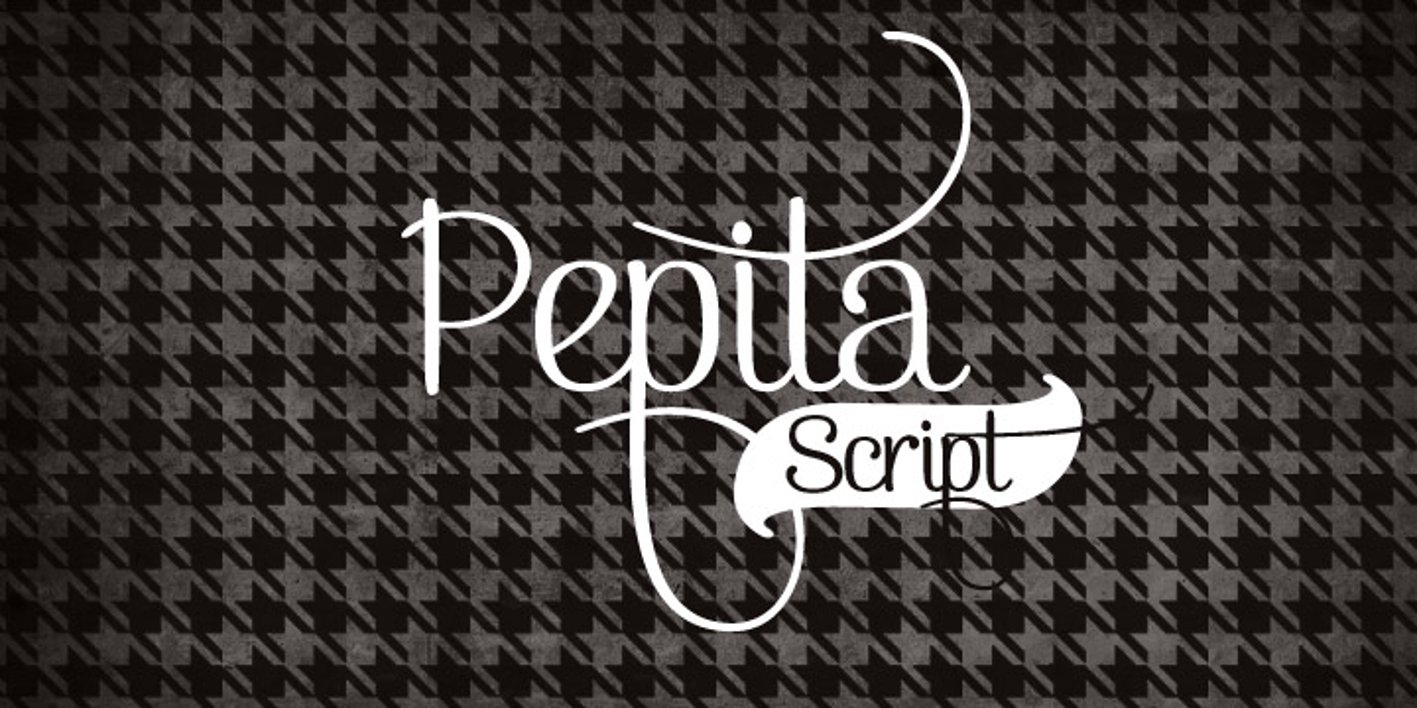
Pepita Script Font is perfect for Latin restaurant branding, Spanish cultural events, flamenco dance promotions, vibrant festival materials, passionate love letters, spicy food packaging, Mediterranean café signage, fiesta party invitations, Latin music album covers, and energetically spirited marketing communications.
Pepita Script Font is exciting because it pulses with the passionate energy and vibrant spirit of Latin culture with its rhythmically flowing letterforms that dance across the page like flamenco steps and radiate the warm intensity of Mediterranean sunshine and Latin celebration. Its passionately expressive character design reflects both the fiery temperament of Latin romance and the joyful exuberance that defines Spanish-speaking cultures, making it perfect for brands celebrating Latin heritage and passionate living.
Pepita Script Font family includes light, regular, medium, bold, and black weights, each with corresponding italic versions. The font family also features Latin-inspired ornaments, passionate ligatures, cultural symbols, and festive decorative elements that enhance its vibrant aesthetic and cultural versatility.
This passionately vibrant typeface represents the perfect fusion of Latin cultural authenticity and contemporary design appeal. Pepita Script Font Free Download enables designers to experience its spirited appeal before making a commercial commitment. The font's ability to convey both cultural passion and festive joy makes it ideal for Latin businesses, cultural organizations, and brands celebrating Hispanic heritage and passionate experiences.
Whether you're developing Latin restaurant identities, creating cultural celebration materials, or designing passionate brand communications, Pepita Script Font brings an unmistakable sense of Latin fire and cultural authenticity to every project. Its passionate character and Hispanic heritage create powerful connections that resonate with audiences seeking authentic cultural experiences and vibrant Latin celebrations.
The font's versatility excels in cultural and entertainment environments where passion and Latin authenticity are valued. Its spirited character makes it particularly effective for Latin restaurants, cultural centers, dance studios, and Hispanic businesses seeking to establish genuine connections with Latin communities and audiences appreciating passionate cultural expression and festive celebration.
For designers working on projects requiring authentic Latin passion and cultural appeal, Pepita Script Font provides an exceptional solution. Its vibrant presence and comprehensive Latin-themed elements offer the tools needed for creating truly spirited communications, while its passionate energy ensures your designs capture the fiery celebration and cultural pride that defines authentic Latin heritage and joyful Hispanic traditions.